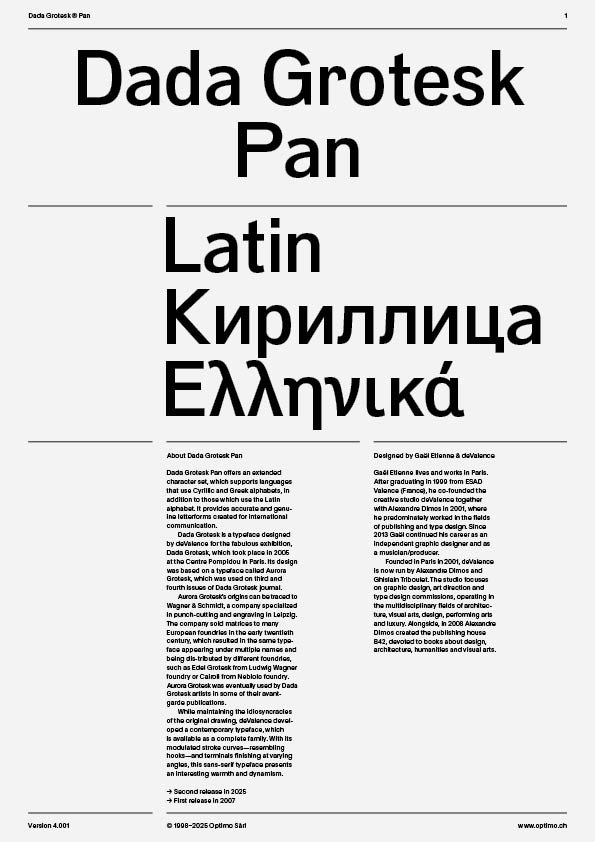
Dada Grotesk Pan
Case Sensitive Forms
All Caps [cpsp]
Case Sensitive Forms [case]
This function formats the text in uppercase and adjusts spacing between all capital letters. It also applies the ‘Case Sensitive Forms’ feature which replaces certain characters with alternates that are better suited for all capital text, especially related to punctuation.
Contextual Alternates
Contextual Alternates [calt]
This feature adapts the position of a glyph after its surrounding context. For instance, a dash placed between two uppercase letters or numbers will be replaced by an uppercase version of the dash, slightly higher. This feature is usually active by default in Adobe applications.
Bulgarian alternates
Stylistic Set 3 [ss03]
This feature activates alternative letters used in Bulgarian language.
Macedonian and Serbian alternates
Stylistic Set 4 [ss04]
This feature activates the alternative “be” letter used in Serbian language.
Serbian alternates [italics only]
Stylistic Set 5 [ss05]
This feature activates alternative italic letters used in Serbian language.
Tabular Lining Figures
Tabular Lining Figures [tnum–lnum]
Based on the proportions of the capitals, lining figures have an invariable height. With the combination of the tabular spacing format, the width of each numeral is uniformized. This feature is useful when numerals need to all lined up. It facilitates the reading of numbers set within columns or tables. As some applications don’t have access to this feature, proportional figures are set as the default choice.
Fractions
With this feature, any numbers separated by a slash will automatically turn into a fraction. To fit in fraction configuration, numerals have been designed smaller and their weights have been adjusted to suit the typeface.
Lowercase math symbols
Stylistic Set 6 [ss06]
This feature activates alternate lowercase positioning of mathematical symbols.
This feature replaces any letter following a numeral with its matching superior letters. French language uses the ordinal indicators such as ‘er’ for 1er premier, while Spanish, Portuguese and Italian require the feminine and masculine ordinals ‘a,’ ‘o’ for 1º, 1ª. Ordinals are designed to match the weight of the typeface.
Slashed Zero
Slashed Zero [zero]
Originally created to avoid the confusion between the ‘0’ and the ‘O’, this feature substitutes all zeros in a selected text by a slashed form of the zero.
Multiply sign
Stylistic Set 20 [ss20]
This feature substitutes the letter “x” into the multiplication sign.
Numerators [numr]
This feature substitutes glyphs with their matching smaller alternates. The numerators are the same glyphs that are used to create fractions, their vertical position remains within the capital letters height. These glyphs are reduced in size and designed slightly heavier to keep them consistent with the rest of the font.
This feature substitutes glyphs with their matching smaller alternates and low position glyphs. The denominators are the same glyphs that are used to create fractions, their vertical position remains within the base line. These glyphs are reduced in size and designed slightly heavier to keep them consistent with the rest of the font.
Superscript/Superiors
This feature substitutes glyphs with their matching smaller alternates which are set slightly above the height of the capital letters. These glyphs are reduced in size and designed slightly heavier to keep them consistent with the rest of the font.
Subscript/Inferiors
Subscript / Inferiors [subs]
This feature substitutes glyphs with their matching smaller alternates which are set slightly below the baseline. These glyphs are reduced in size and designed slightly heavier to keep them consistent with the rest of the font.
While maintaining the idiosyncrasies of the original drawing, deValence developed a contemporary typeface, which is available as a complete family. With its modulated stroke curves—resembling hooks—and terminals finishing at varying angles, this sans-serif typeface presents an interesting warmth and dynamism.